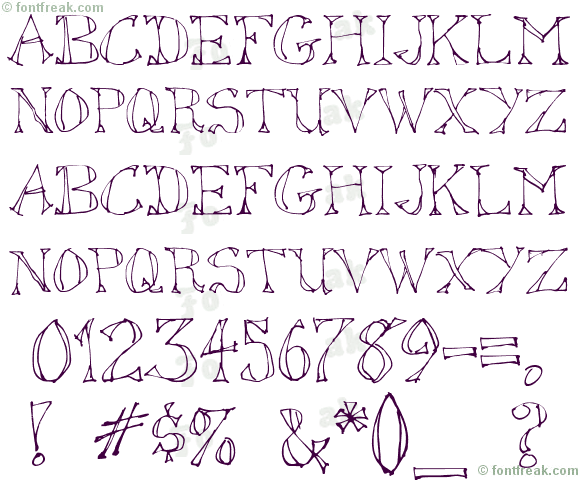
Sketched Out
About Sketched Out
The Sketched Out font by Stanley Roland Frantz is a unique display typeface that captures a playful, hand-drawn aesthetic. Its design features an informal, sketched style that gives it a charming and whimsical appearance. The strokes are uneven and slightly variable in weight, adding to the organic feel of the font. The letterforms are loosely spaced, allowing for a light and airy composition that enhances readability while maintaining a casual vibe.
This font is especially suitable for a variety of creative applications. It works wonderfully for children’s book titles, lending a sense of fun and imagination. Additionally, Sketched Out is perfect for graphic design projects such as posters for events, where a relaxed and inviting tone is desired. Restaurant menus can also benefit from this font, as it adds a touch of personality that can make the dining experience feel more approachable. Moreover, it can be effectively used in social media graphics, where attention-grabbing, unique typography can help stand out in a crowded feed.
The target audience for the Sketched Out font includes graphic designers, small business owners, and content creators looking to infuse their projects with a sense of creativity and playfulness. This font appeals to those who appreciate a handmade touch in their designs, making it an ideal choice for anyone aiming to establish a friendly connection with their audience.
In conclusion, the Sketched Out font stands out due to its distinctive, hand-drawn style that offers a refreshing alternative to traditional typefaces. Its versatility and charm make it an excellent choice for various creative endeavors, and you can easily find the Sketched Out font free download to elevate your next project.